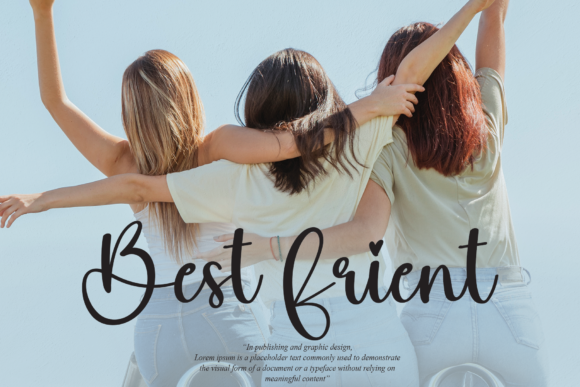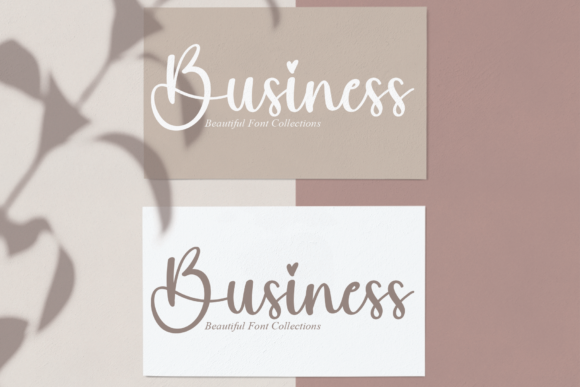
About Hobby Font
Hobby is a charming and sophisticated script font that exudes an aura of delicacy and fashion-forward design. Its elegant and refined style makes it an ideal choice for a wide range of branding initiatives, including logos, t-shirt printing, and various creative projects. This font is versatile and capable of creating a striking impact in diverse contexts.
The meticulously crafted letterforms of Hobby convey a sense of elegance and modernity, making it an excellent addition to your design arsenal. Whether you’re working on a branding campaign, creating fashion-related visuals, or developing unique merchandise, Hobby has the inherent ability to add a touch of sophistication to your creations.
What sets Hobby apart is its adaptability, making it suitable for both digital and print applications. Its unique charm captures attention and gives your designs a distinctive personality. This font’s character and charm ensure that it captures the viewer’s gaze, leaving a memorable impression.
By incorporating Hobby into your projects, you unlock a wealth of creative possibilities. Whether you’re designing logos that demand attention, experimenting with typography, or seeking a font that effortlessly balances delicate aesthetics with contemporary appeal, Hobby offers a comprehensive solution.
Its capacity to blend fashion with elegance positions it as a valuable tool in your design toolkit.